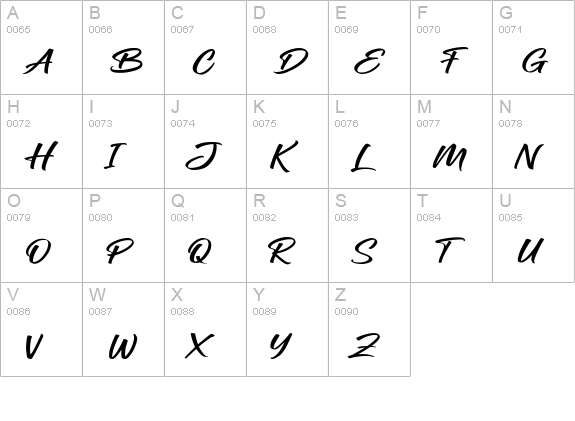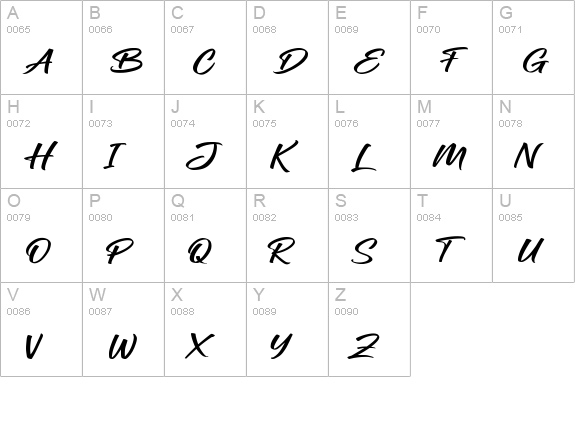
Ballerick Script Font is a stunning and elegant typeface that exudes sophistication and charm. This font features flowing lines and delicate curves that bring a sense of grace and beauty to any design project. Whether you're creating wedding invitations, branding materials, or social media graphics, Ballerick Script Font will add a touch of luxury to your work.